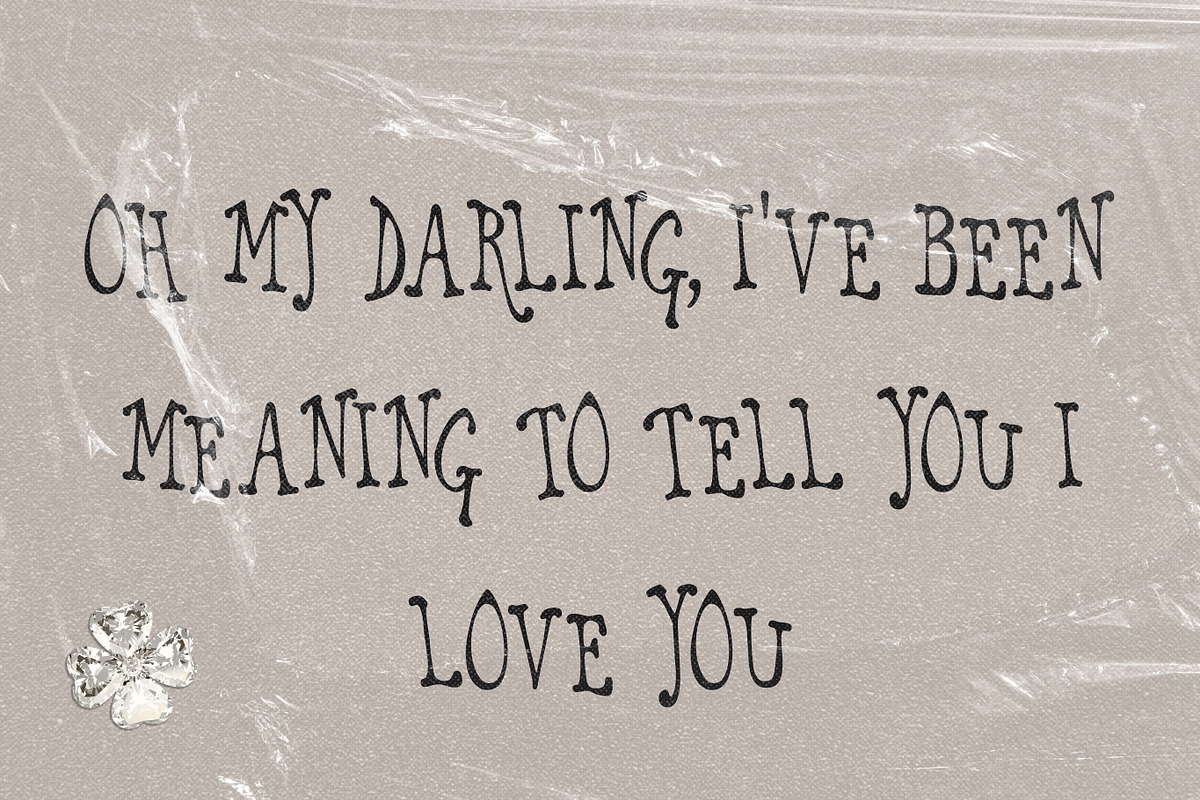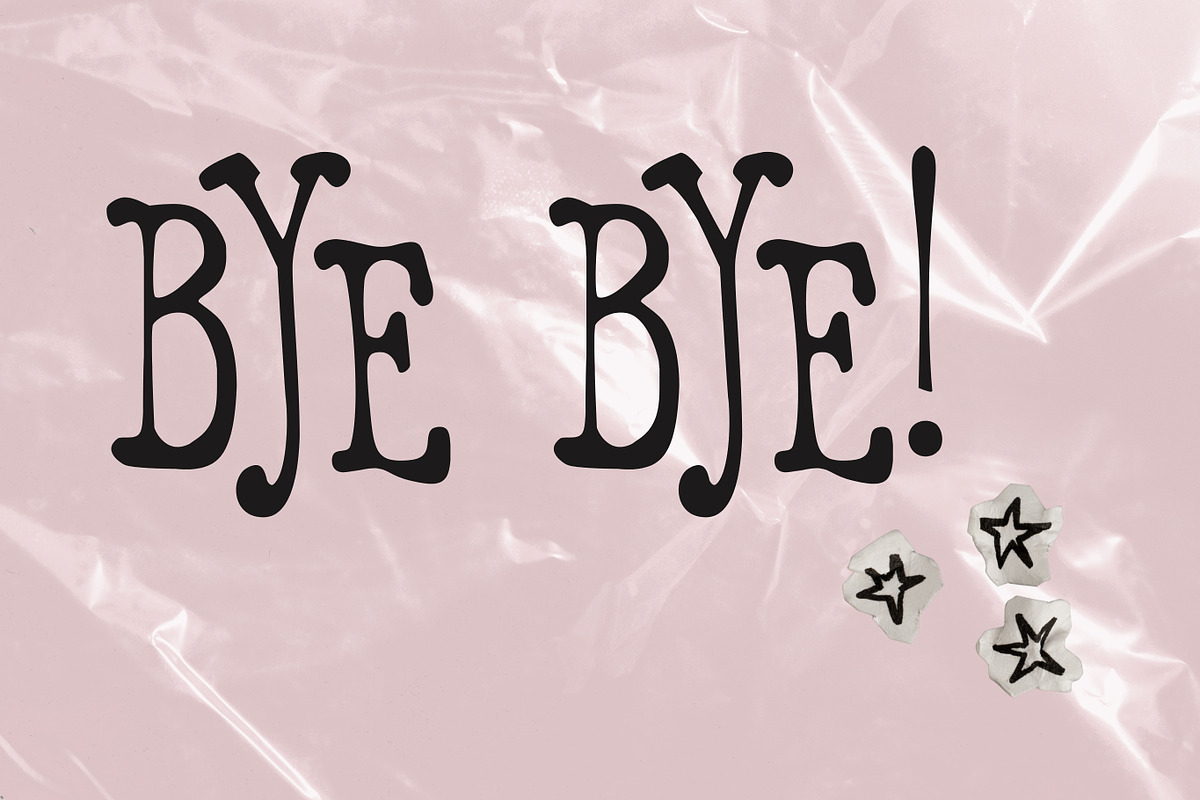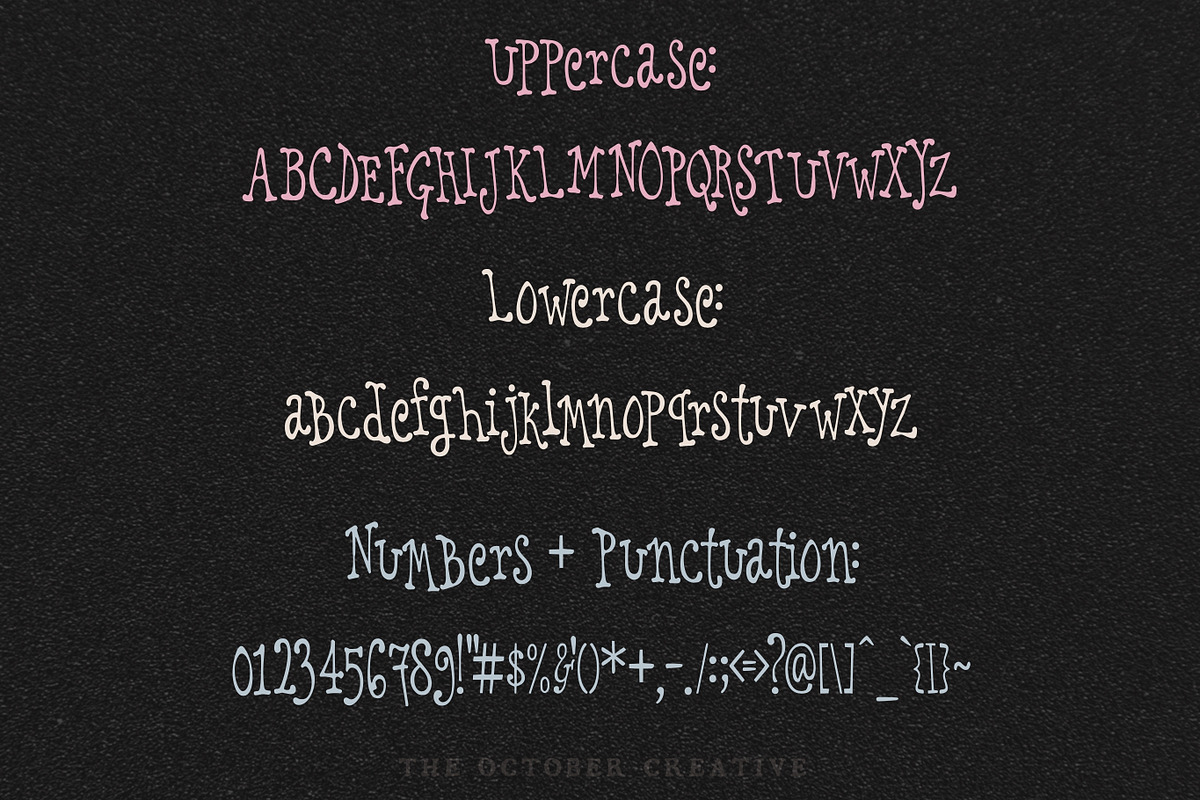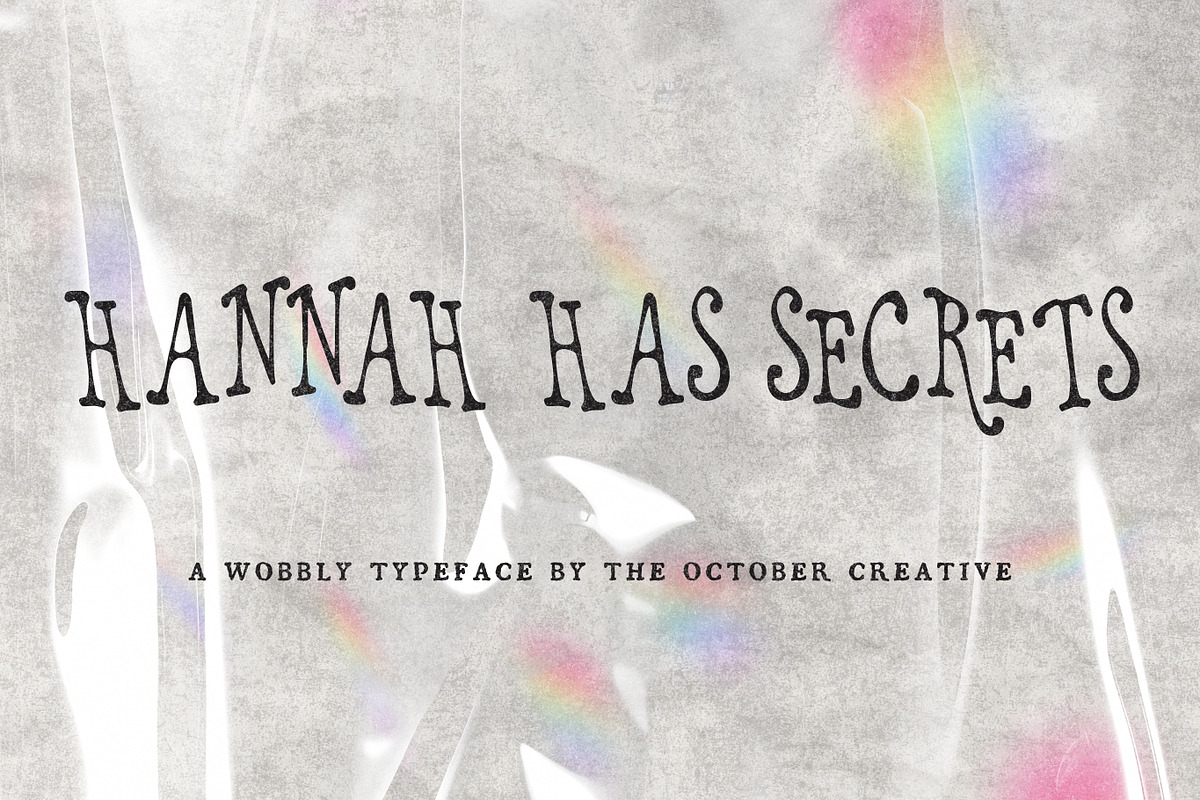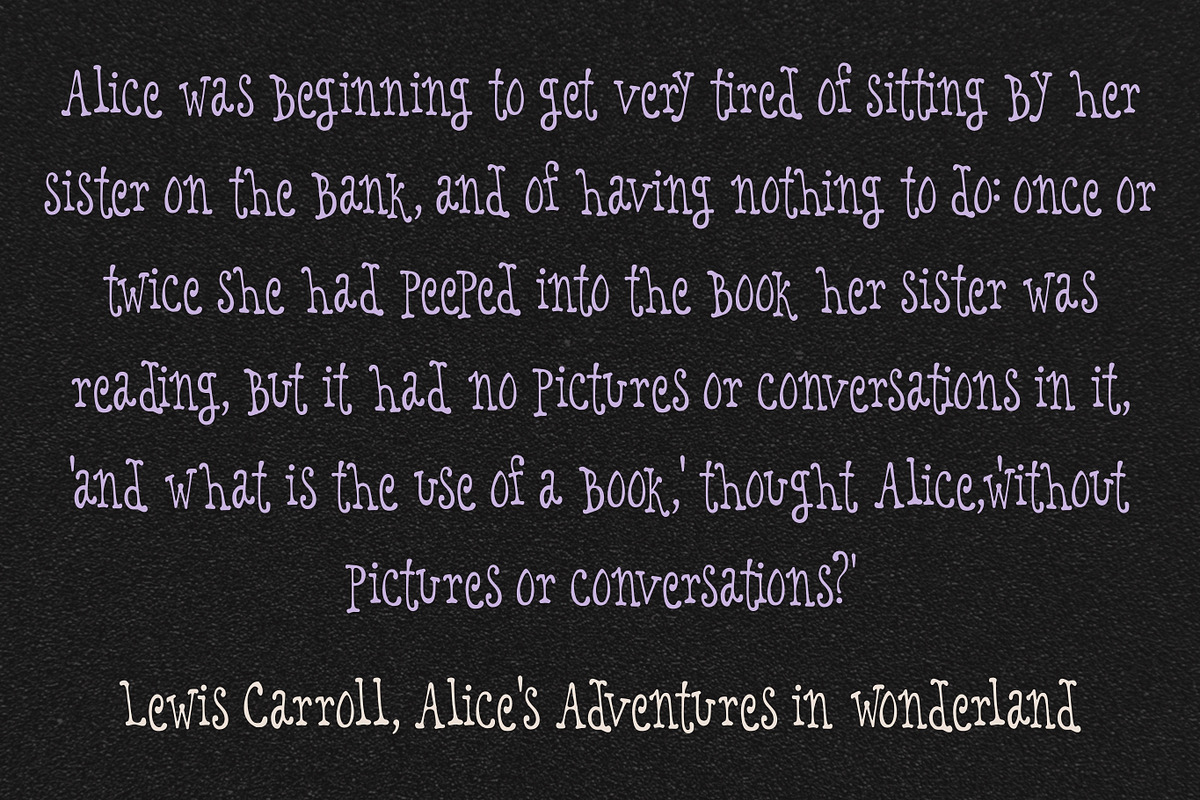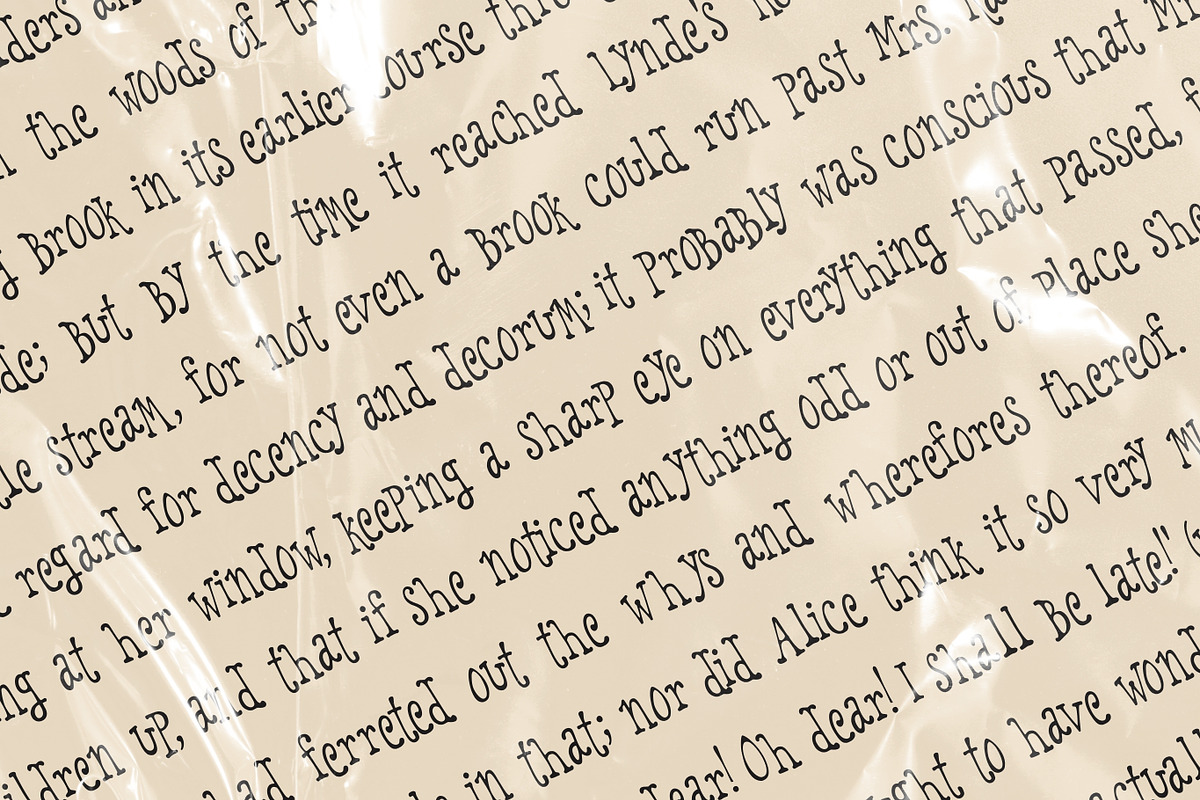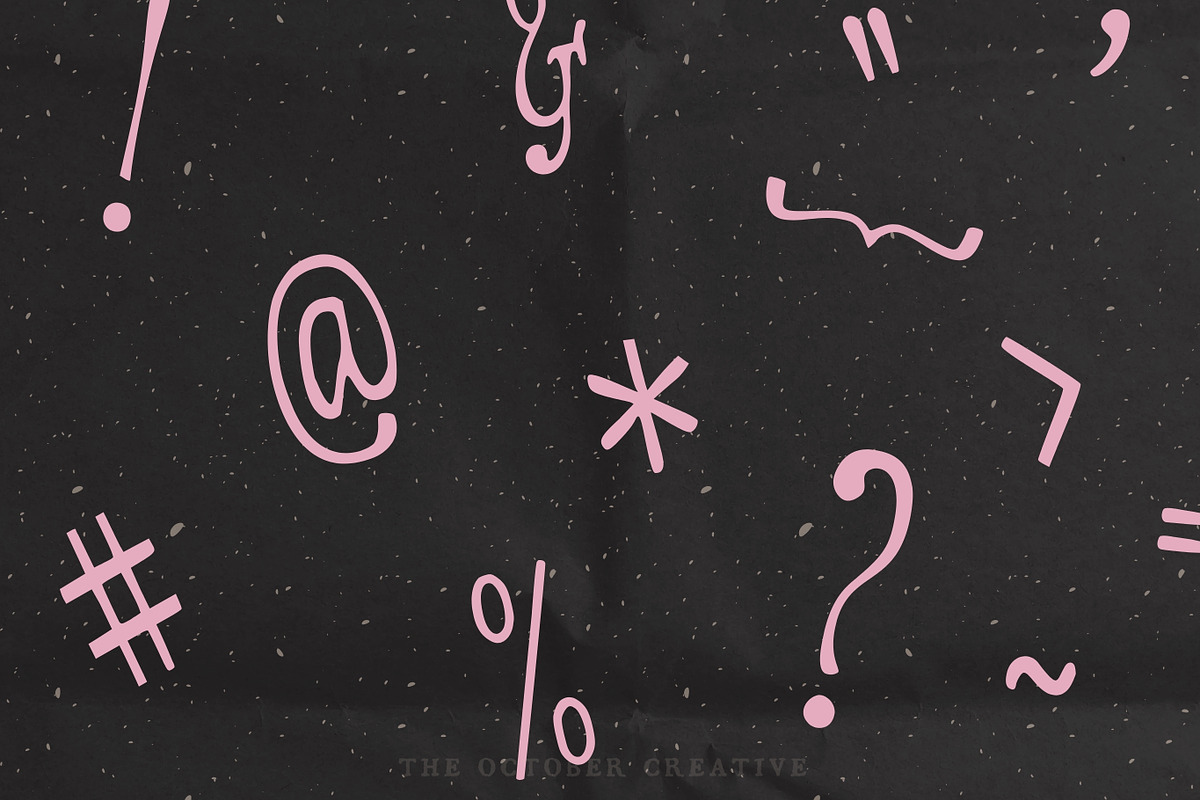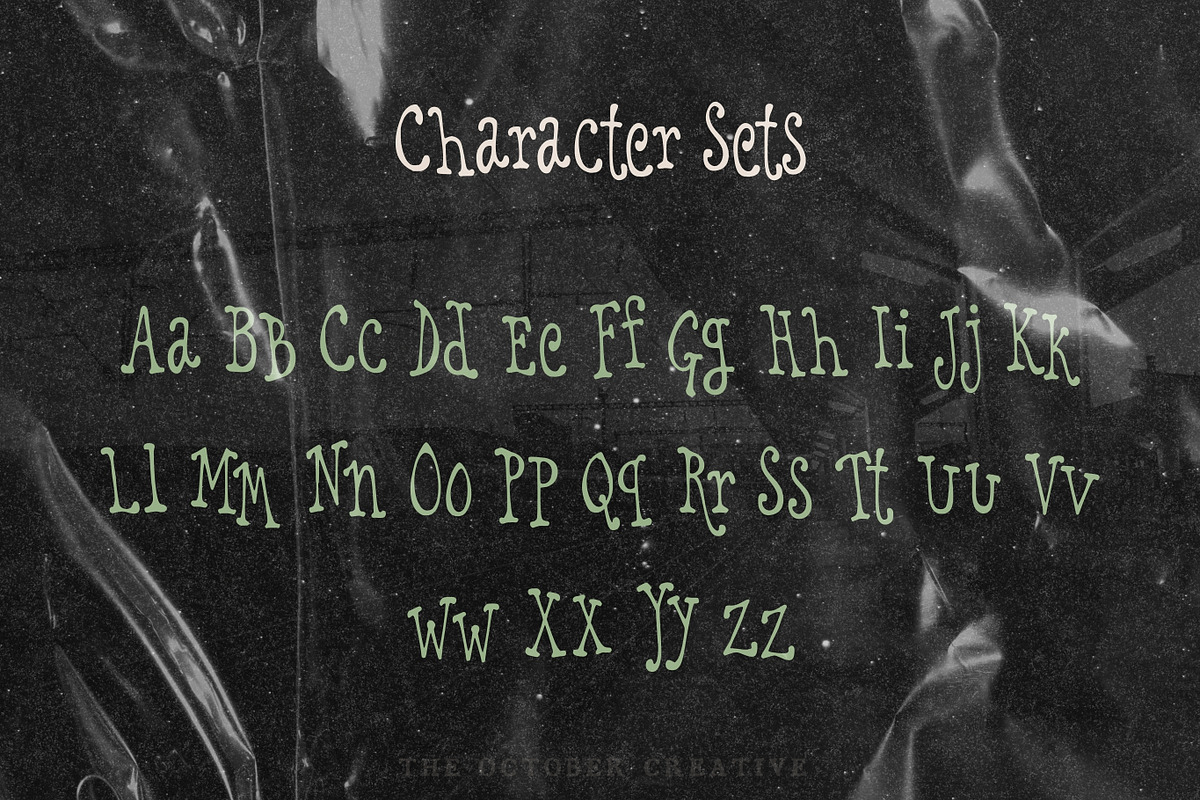
Hannah Has Secrets Wobbly Font
Hannah Has Secrets is a wobbly serif font with an uneven baseline and a lowercase that mixes in capital-style letters. It has a playful, slightly spooky look that suits mystery party invitations, book covers, game night printables, and Halloween signs.
CHARACTER SET
Uppercase A to Z, lowercase a to z, numerals 0 to 9, and every standard keyboard punctuation mark and symbol: ! " # $ % & ' ( ) * + , - . / : ; < = > ? @ [ \ ] ^ _ ` { | } \~
Curly quotes and apostrophes (‘ ’ “ ” ‚ „), en and em dashes, an ellipsis, and a bullet.
Accented letters: À Á Â Ã Ä Å Ç È É Ê Ë Ì Í Î Ï Ñ Ò Ó Ô Õ Ö Ù Ú Û Ü and their lowercase forms.
LANGUAGES SUPPORTED
English, plus the accented vowels, Ñ, and Ç used in names and everyday words in Spanish, French, Italian, Portuguese, German, and Dutch. Not included: ß, Æ, Ø, Œ, and the upside-down ¿ and ¡.
SPECIAL CHARACTERS